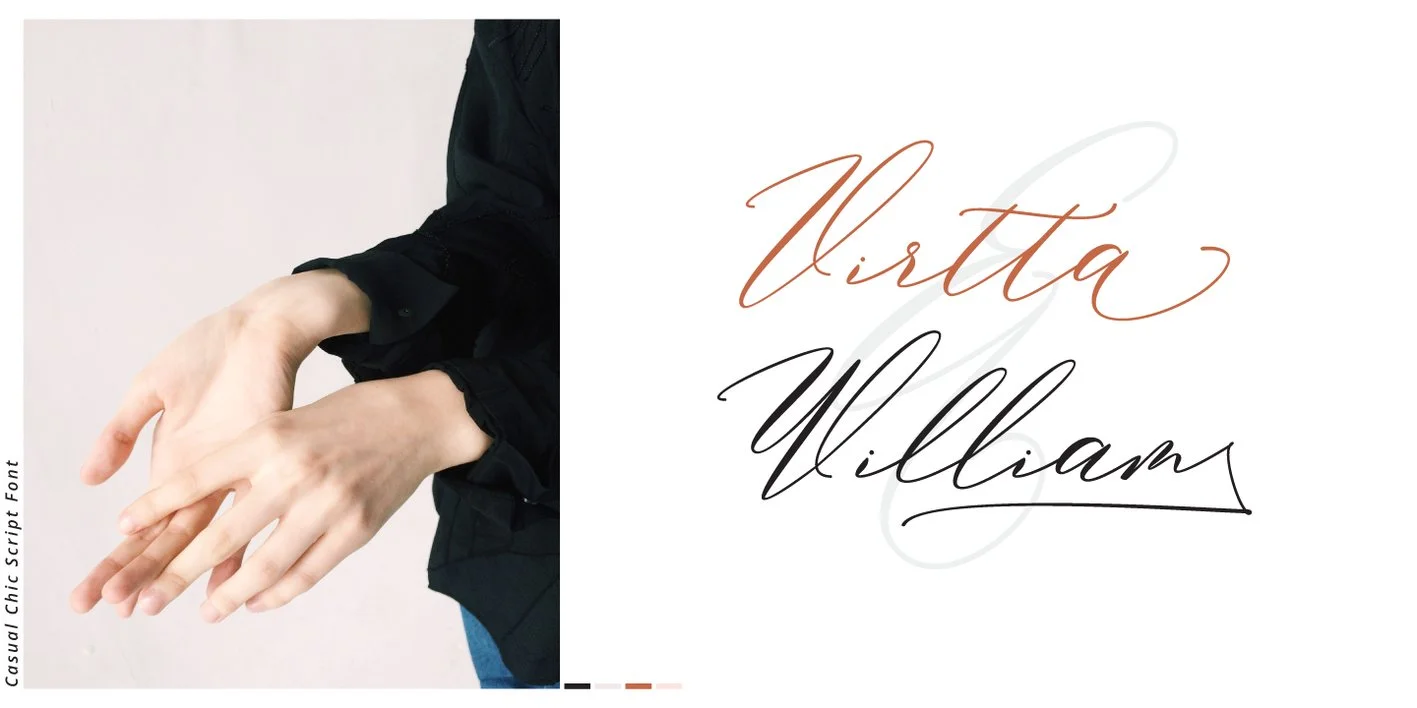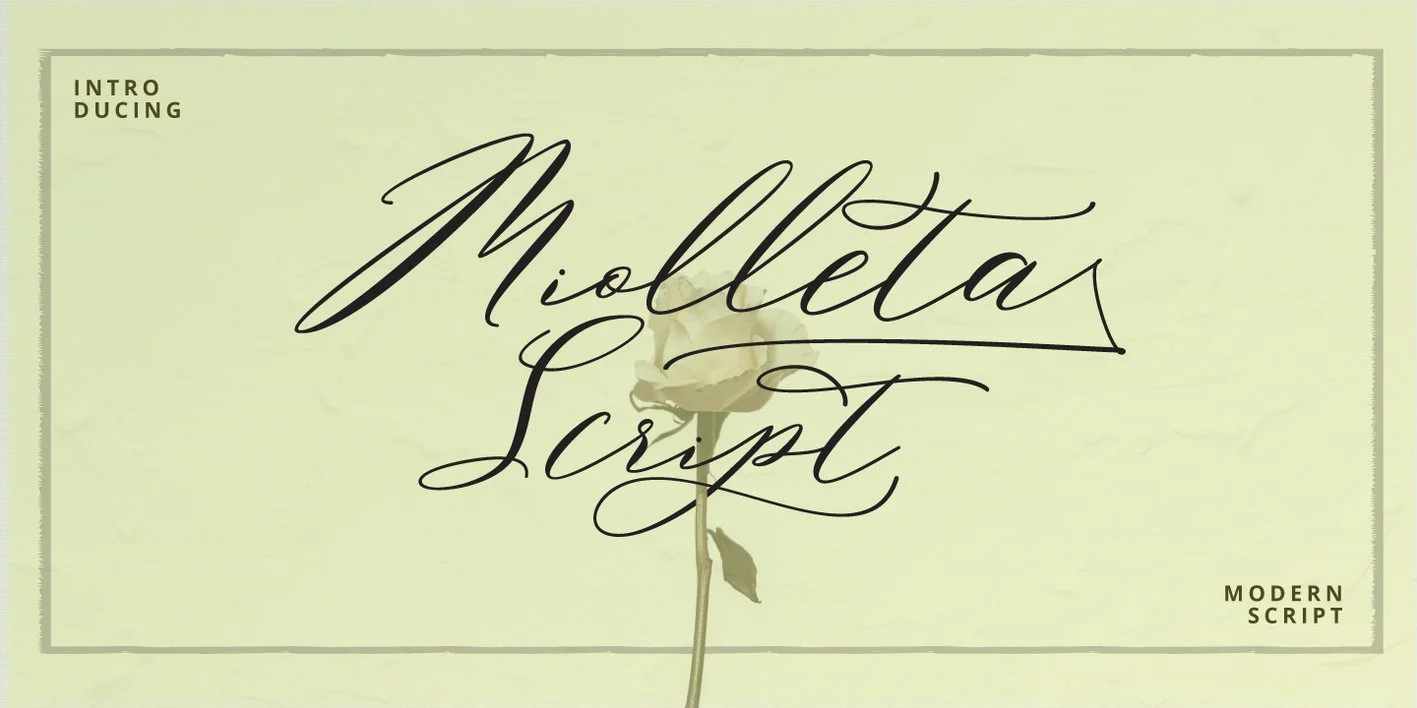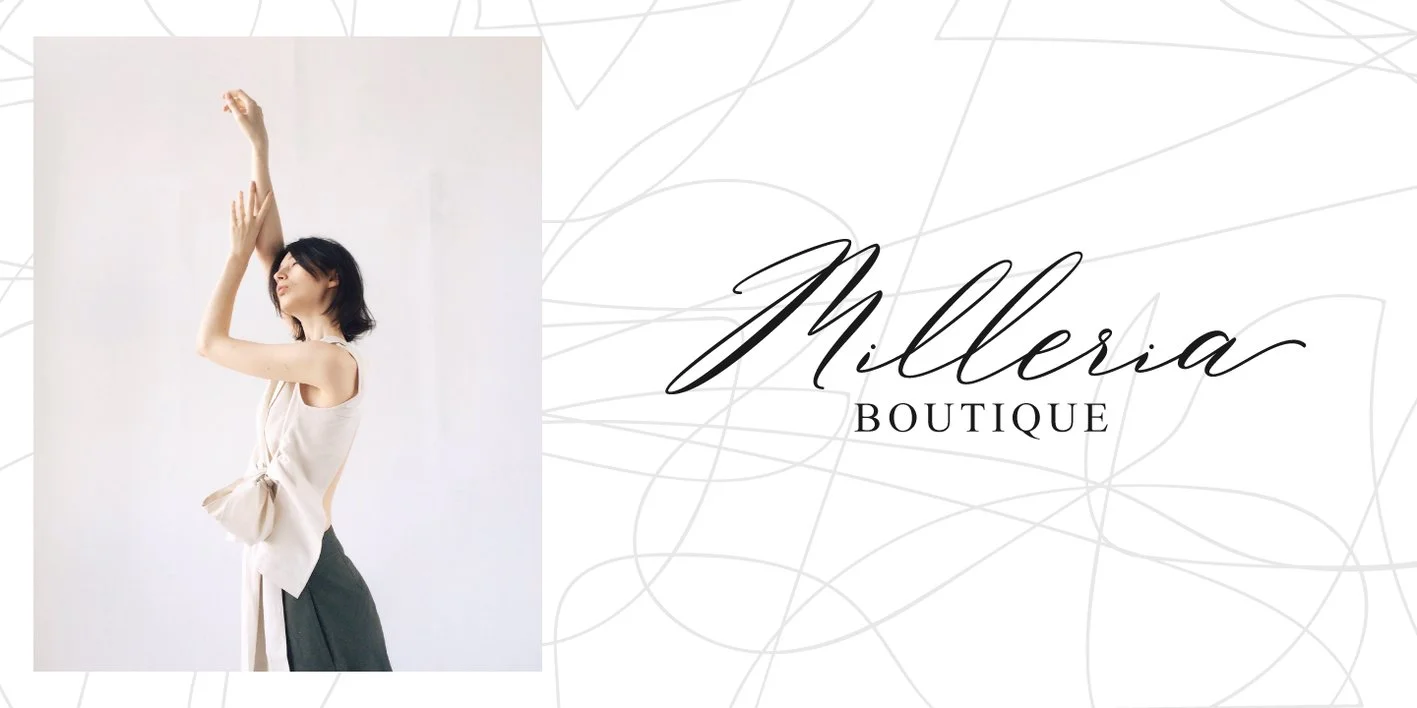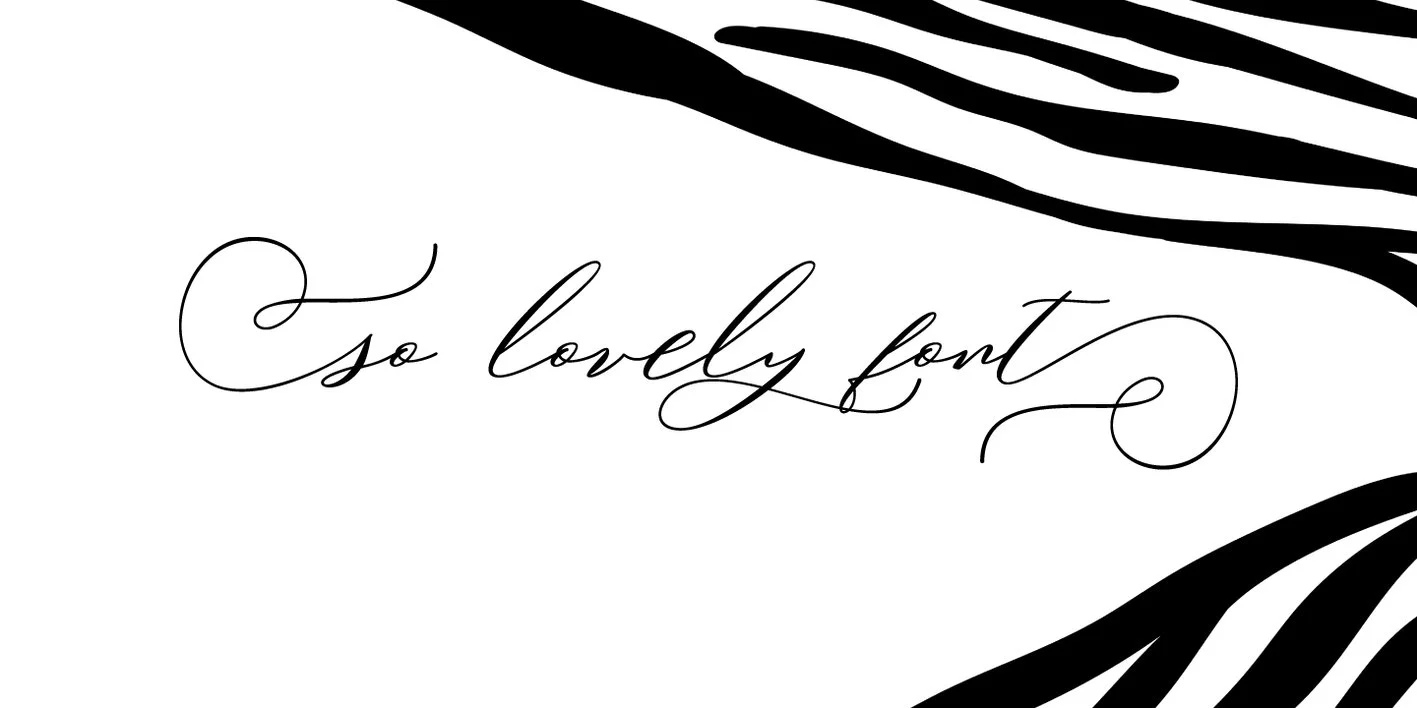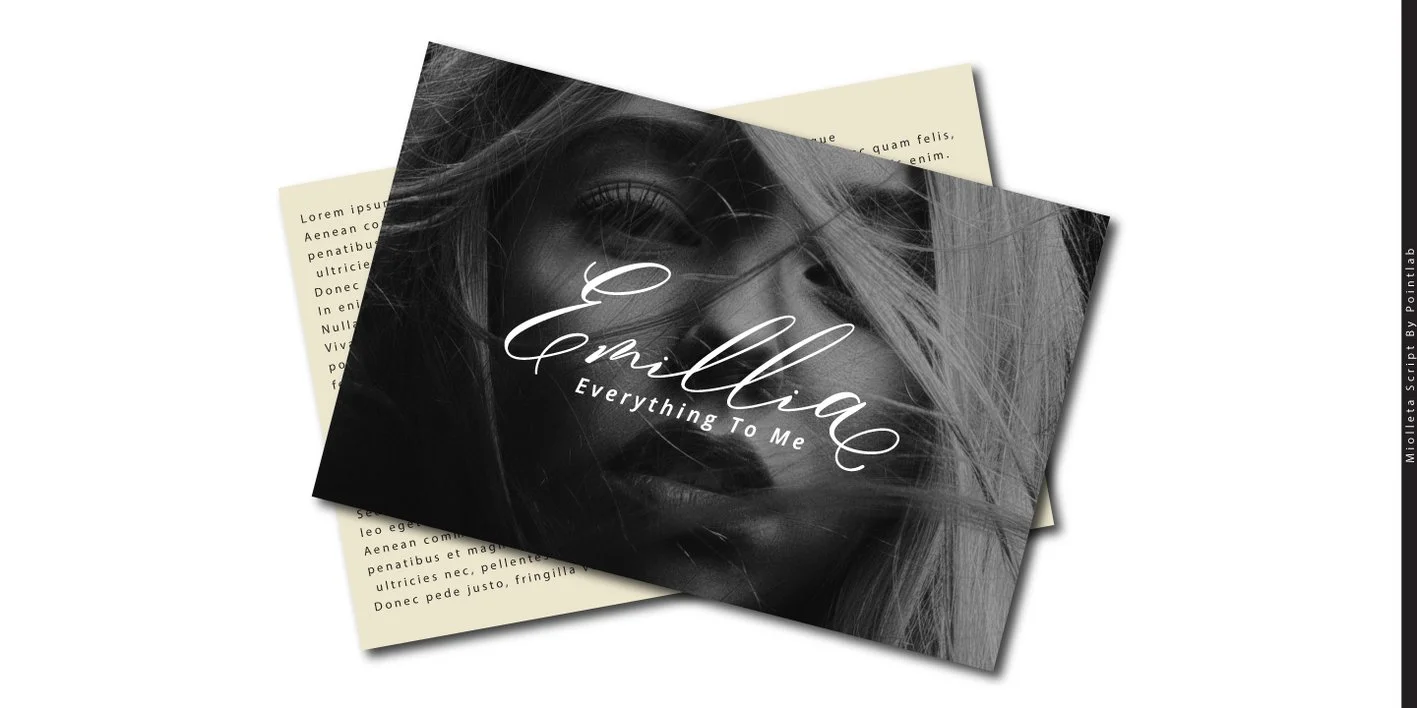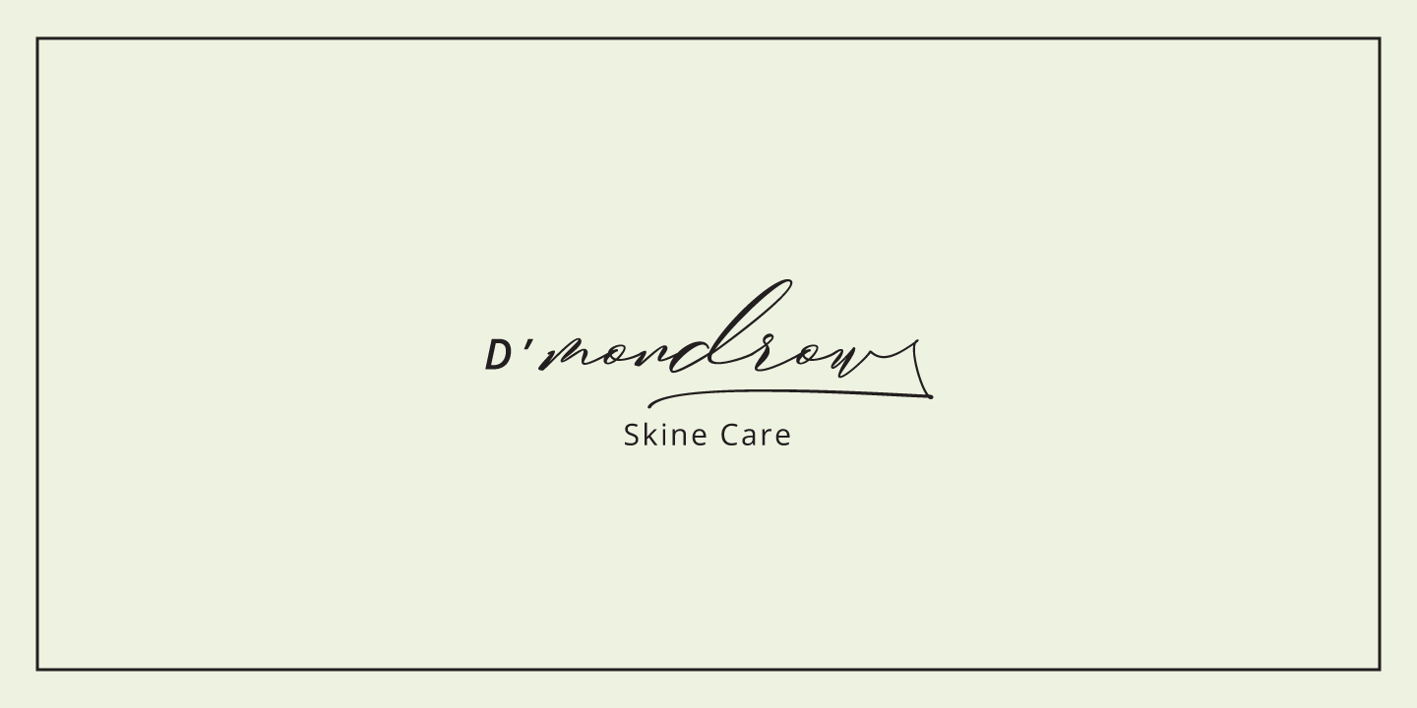
Miolleta Script Font
When a design brief calls for both consistent type colour across continuous text and immediate visual impact, type choices matter — Miolleta Script answers that brief. The typeface brings an elegant, calligraphic sensibility to a broad range of creative disciplines, with optical balance across all weights that holds up whether the work is print-first or screen-first.
In practice, Miolleta Script proves particularly effective for social media graphics, high-end cosmetic packaging, fashion editorials, editorial layouts, perfume labels. Designers reaching for it find that the type decisions feel resolved rather than laboured — a useful quality when client timelines are tight.
The range of applications extends to logo design, event signage, web design, feminine branding. That breadth is deliberate: the proportions and spacing were stress-tested across a wide range of mock briefs before the typeface was finalised.
Pairing Miolleta Script with a contrasting serif or a neutral grotesque gives mixed-format layouts a clear visual grammar without requiring constant size adjustments to establish hierarchy.
Motion designers building title sequences and lower thirds find Miolleta Script a reliable choice for projects that demand both personality and restraint. The design avoids the self-conscious quirkiness that dates quickly, settling instead for considered distinctiveness that holds up over time.